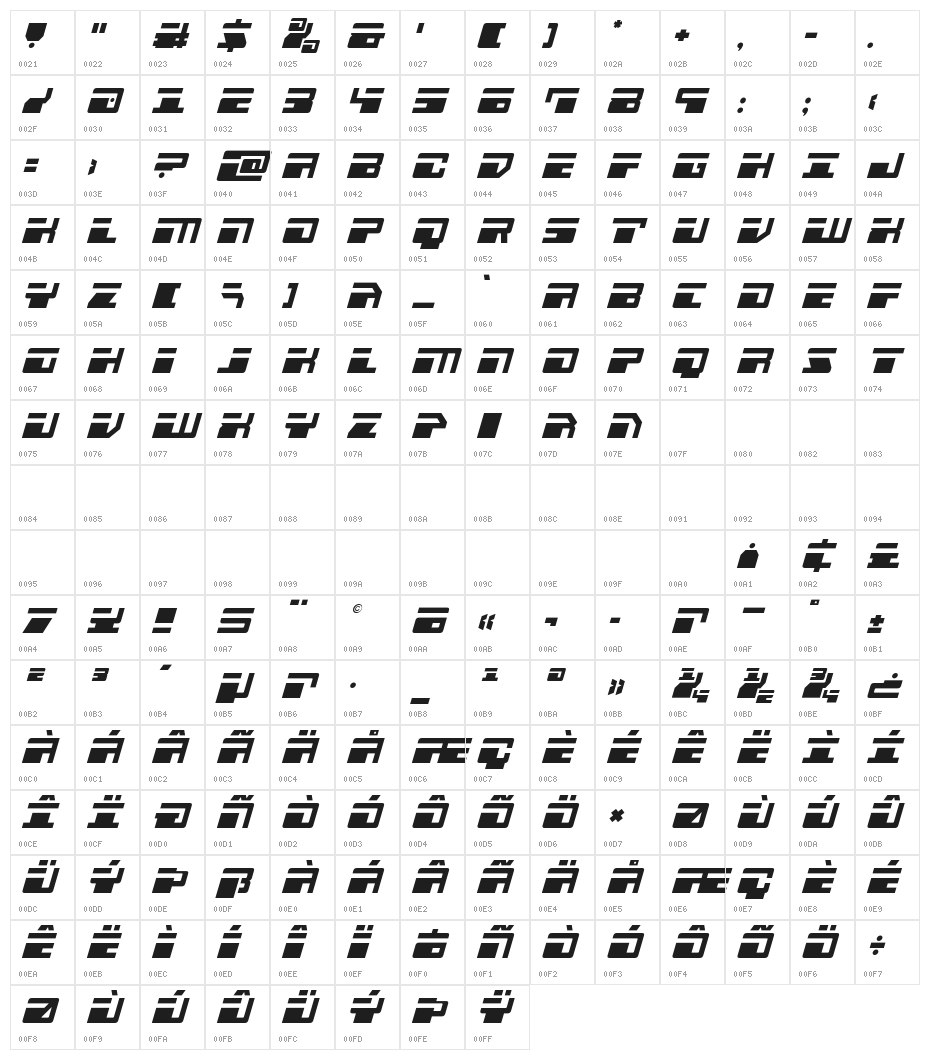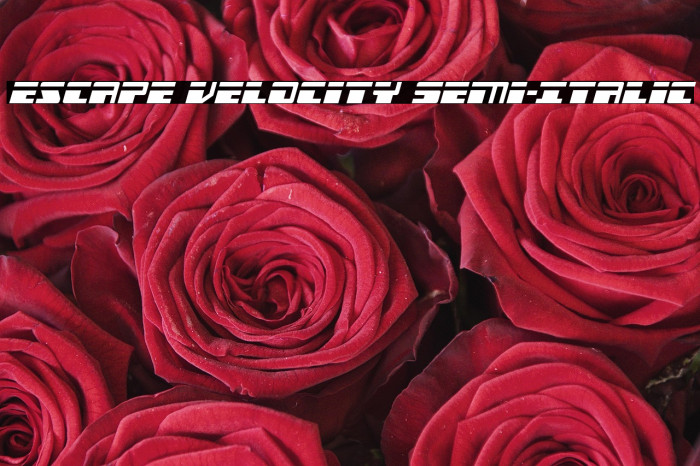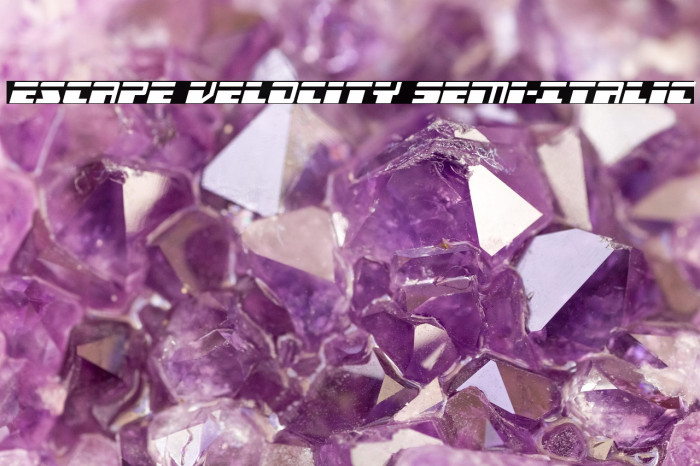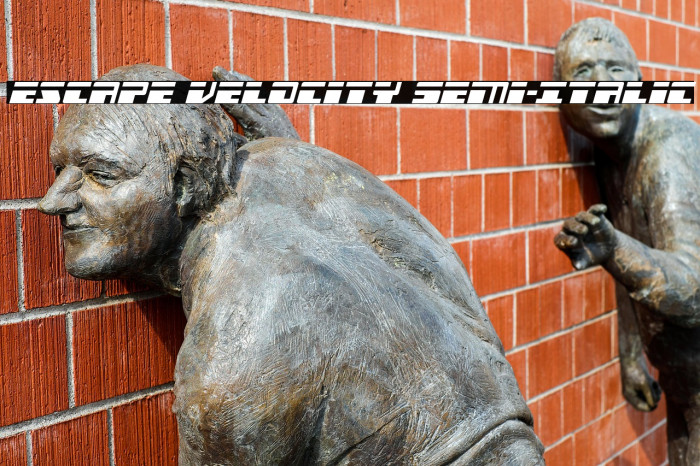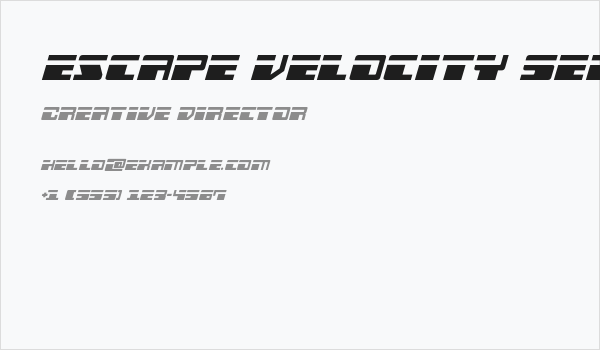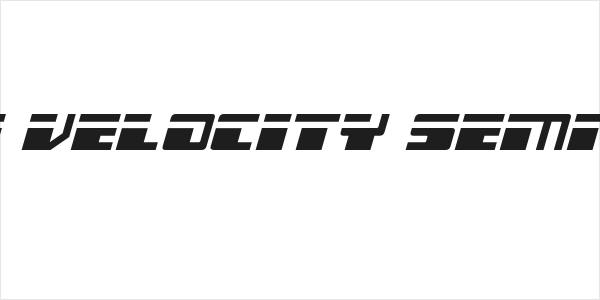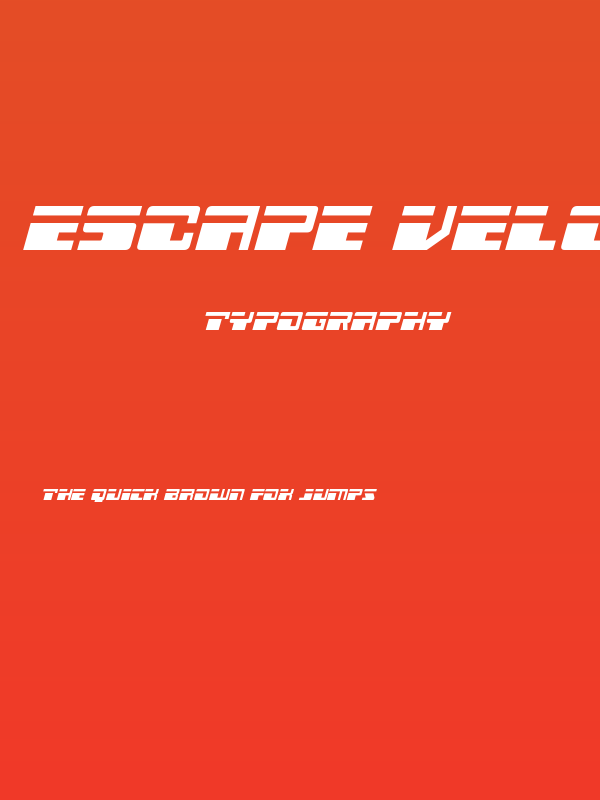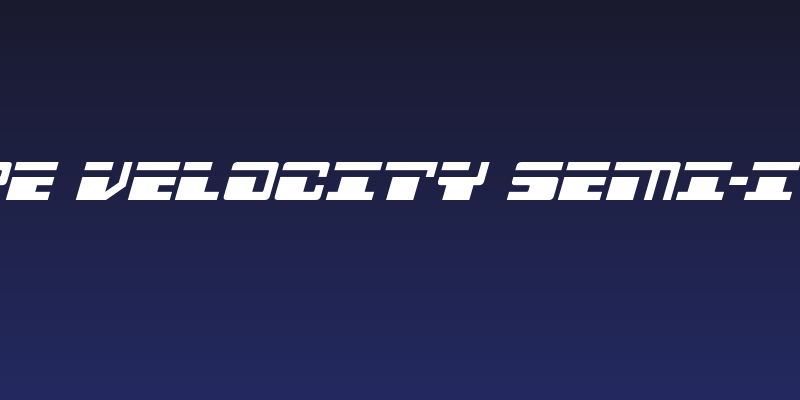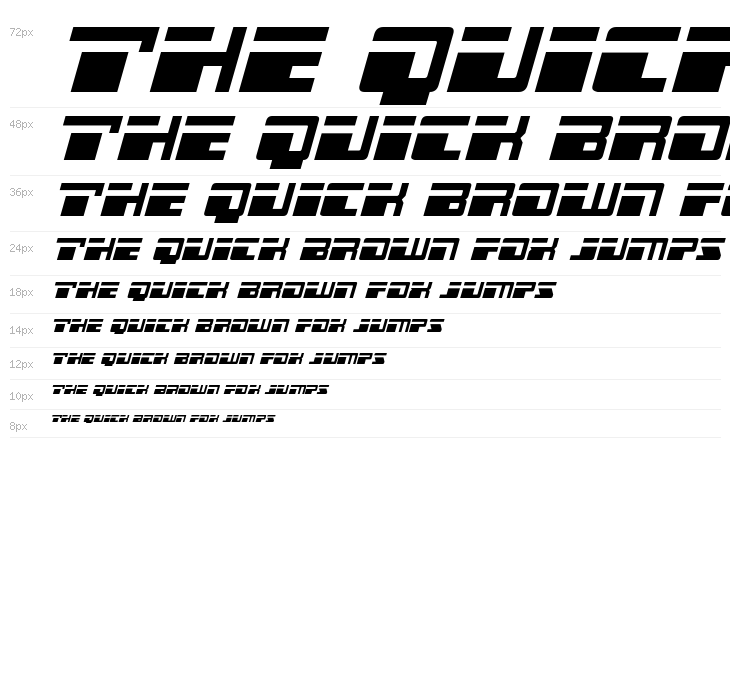
Escape Velocity Semi-Italic Font
Escape Velocity Semi-Italic Description
This font features a futuristic and dynamic design with a semi-italic slant, giving it a sense of motion and speed. The characters are bold and angular, with sharp edges and a geometric structure that conveys a modern and technological feel. The uppercase and lowercase letters maintain a consistent style, with the lowercase slightly smaller but equally bold. Numbers and special characters are designed to match the overall aesthetic, ensuring uniformity across all glyphs. The font's unique style makes it stand out, suitable for projects that require a strong, impactful visual presence.
| Proposed Projects | Ideal for sci-fi themed projects, technology branding, video game titles, and dynamic posters. |